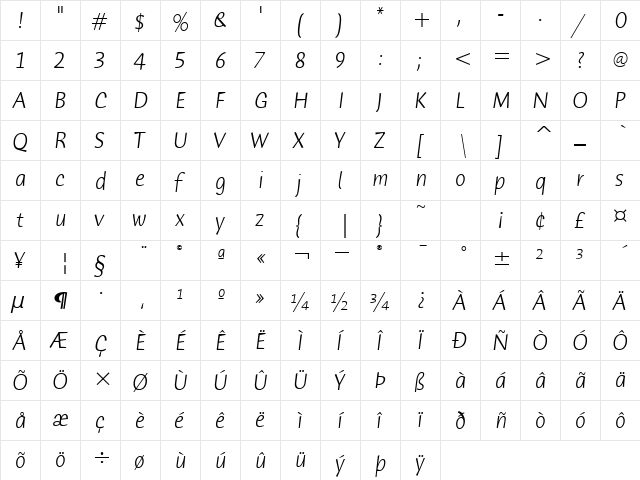
Humana Sans ITC TT LightItalic Font Preview
Design Context for Humana Sans ITC TT Typeface
Humana Sans ITC TT is a composed and adaptable typeface that performs quietly and consistently across a wide range of design contexts. Its italic angle brings a sense of urgency and motion to the letterforms. The delicate stroke weight brings airiness and refinement to layouts.
Pro Tip: Try Humana Sans ITC TT for annotation and caption copy alongside an upright companion — the contrast in angle creates a dynamic but ordered typographic system.